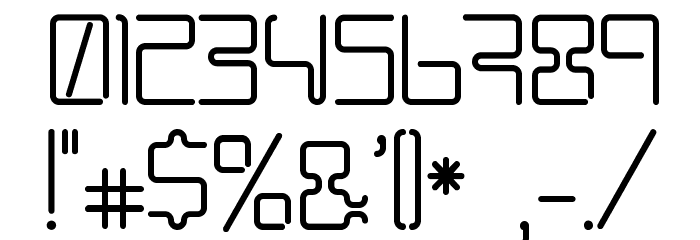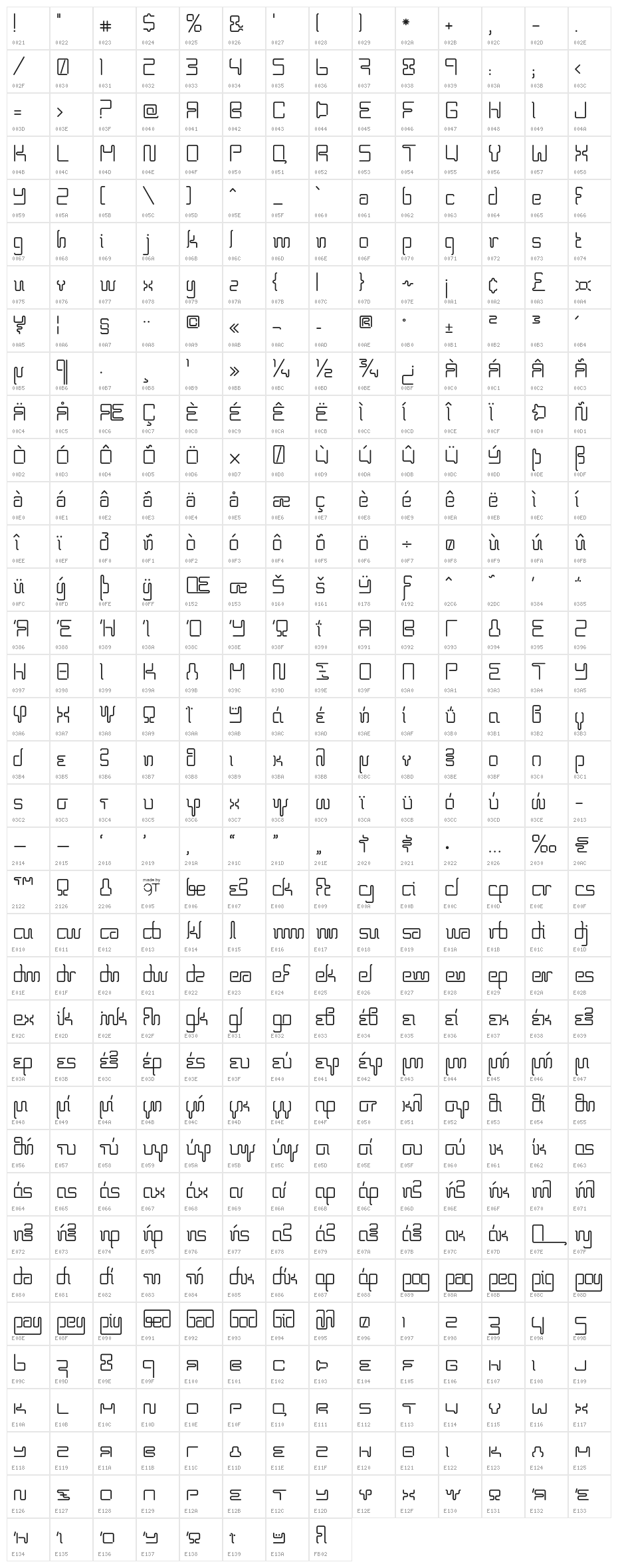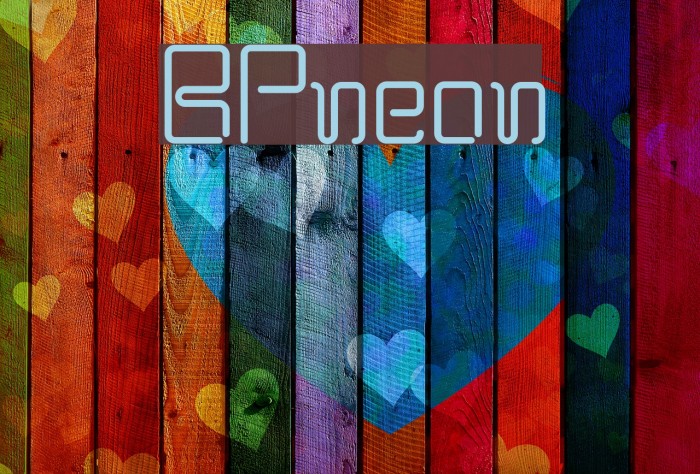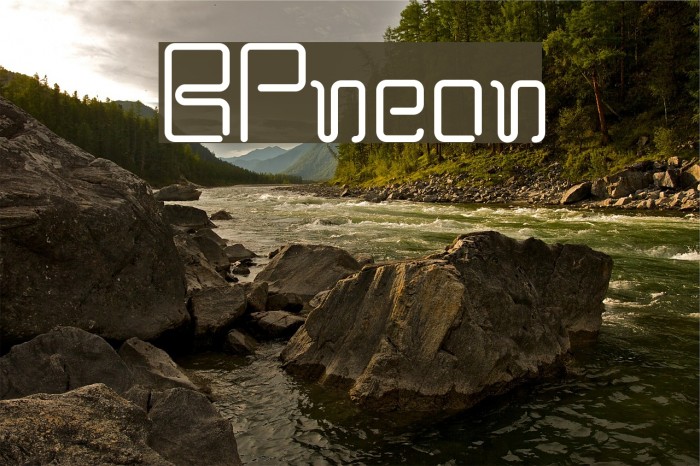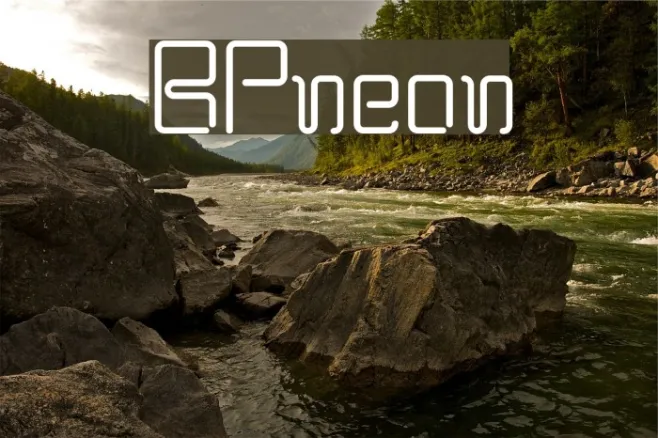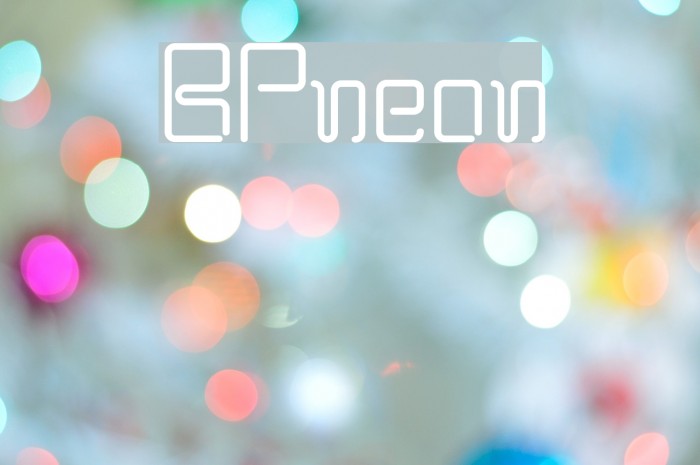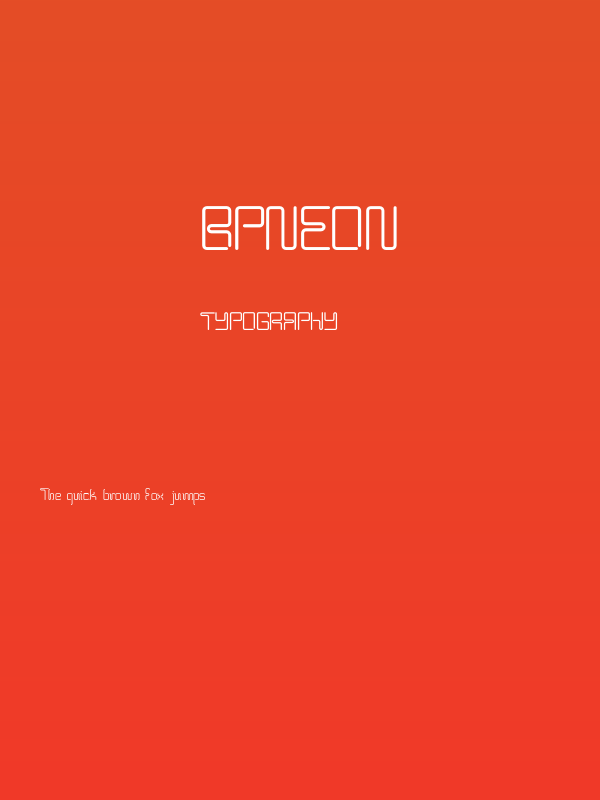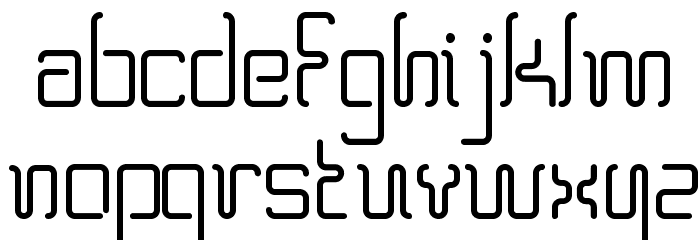
BPneon Font
BPneon Description
This font features a modern, geometric design with a neon-inspired aesthetic. The characters are constructed with consistent line thickness, creating a tubular appearance reminiscent of neon signage. The uppercase and lowercase letters maintain a uniform height, contributing to a cohesive look. The numerals and special characters align with the overall style, offering a futuristic and sleek appearance. The font's open and airy structure allows for excellent readability, making it suitable for various design applications.
| Use Case | Headlines, Logos, Signage |
| Proposed Projects | Ideal for projects involving signage, branding, digital interfaces, and futuristic themes. |